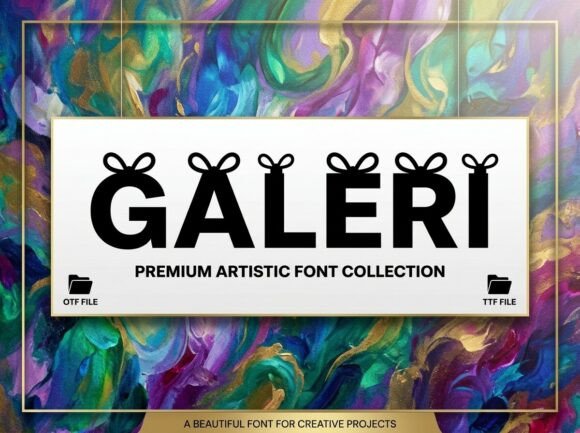
The Perfect Blend of Elegance and Personality: Introducing Galer Font
Have you ever been working on a project, pouring your heart and soul into it, and suddenly, you need that one thing to make it truly special? That’s when the magic happens – the moment you discover a font that elevates your entire design. For creatives, this is a moment of pure bliss, and it’s exactly what Galer Font is designed to provide.
This stunning decorative display font is more than just a typography choice; it’s a statement piece that adds a touch of sophistication and personality to any layout. With its unique artistic elements and strong character, Galer Font is perfect for designers who want to break away from the ordinary and create something truly remarkable.
Galer Font Key Features
- Font Family: Galer Font is a sans-serif typeface designed for modern and minimalist designs.
- Unique Characteristics: Features a clean, geometric design with subtle rounded edges, making it ideal for digital and print media.
Galer Font Review
Overall, I’m quite impressed with the Galer Font. Here are some of the things that work well: ✨
- Neutral and clean design, making it suitable for a wide range of projects
- Legibility is good even at smaller font sizes
- The font family includes a good range of weights and styles
However, there are some limitations: ⚠️
- Not particularly unique or eye-catching, making it blend in with other fonts in a crowded market
- No bold or italic variants in the free version, which can be a limitation for designers who need those styles
- Some users may find the font to be a bit too minimalist, lacking character and personality
Overall, I think Galer Font is a solid choice for designers who need a clean, neutral font. While it may not stand out from the crowd, it gets the job done and is easy to work with. If you’re looking for something more unique or bold, you may want to consider other options.
For the best results, use the Galer Font in conjunction with a clean and simple design aesthetic. Experiment with different font sizes, colors, and combinations to find the perfect balance for your project.
The Galer Font is ideal for:
- Corporate branding and marketing materials
- Graphic design and print materials